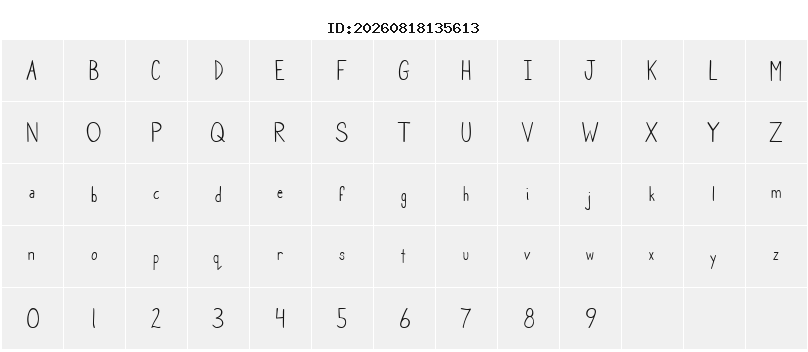
Smarty Pants Preview
• Font Name: Smarty Pants
• Full Font Name: Smarty Pants
About Smarty Pants.ttf
Smarty Pants.ttf is a modern, elegant sans-serif font designed for ultimate readability and visual harmony. Perfect for branding, headlines, web design, and print materials.